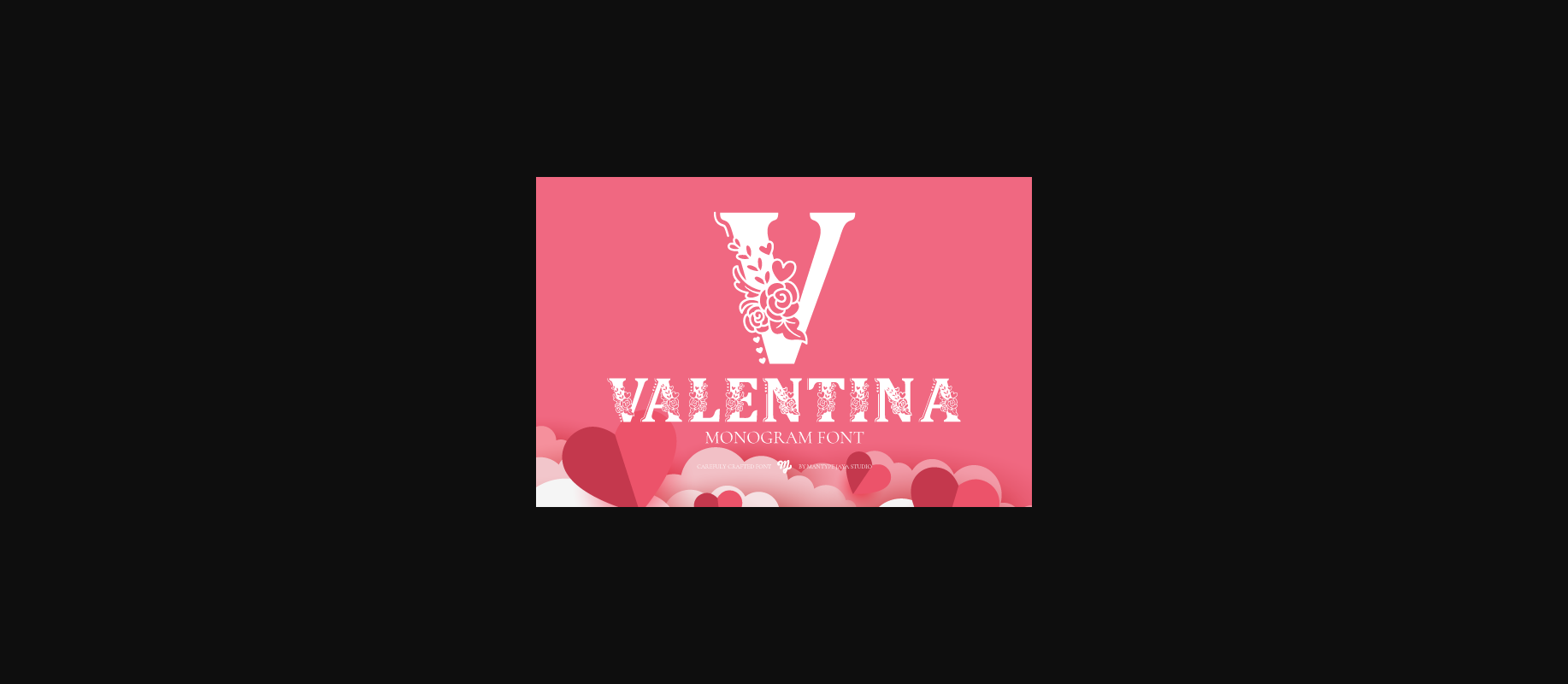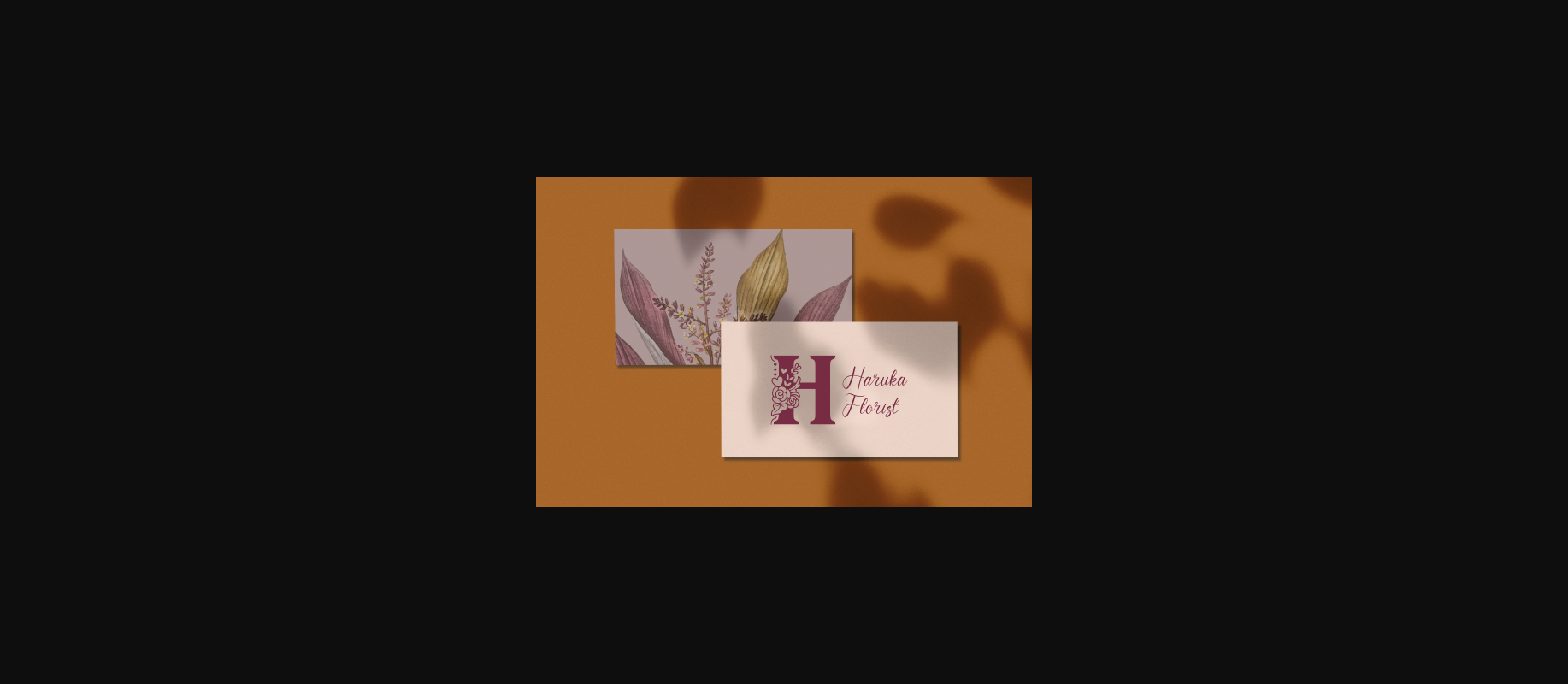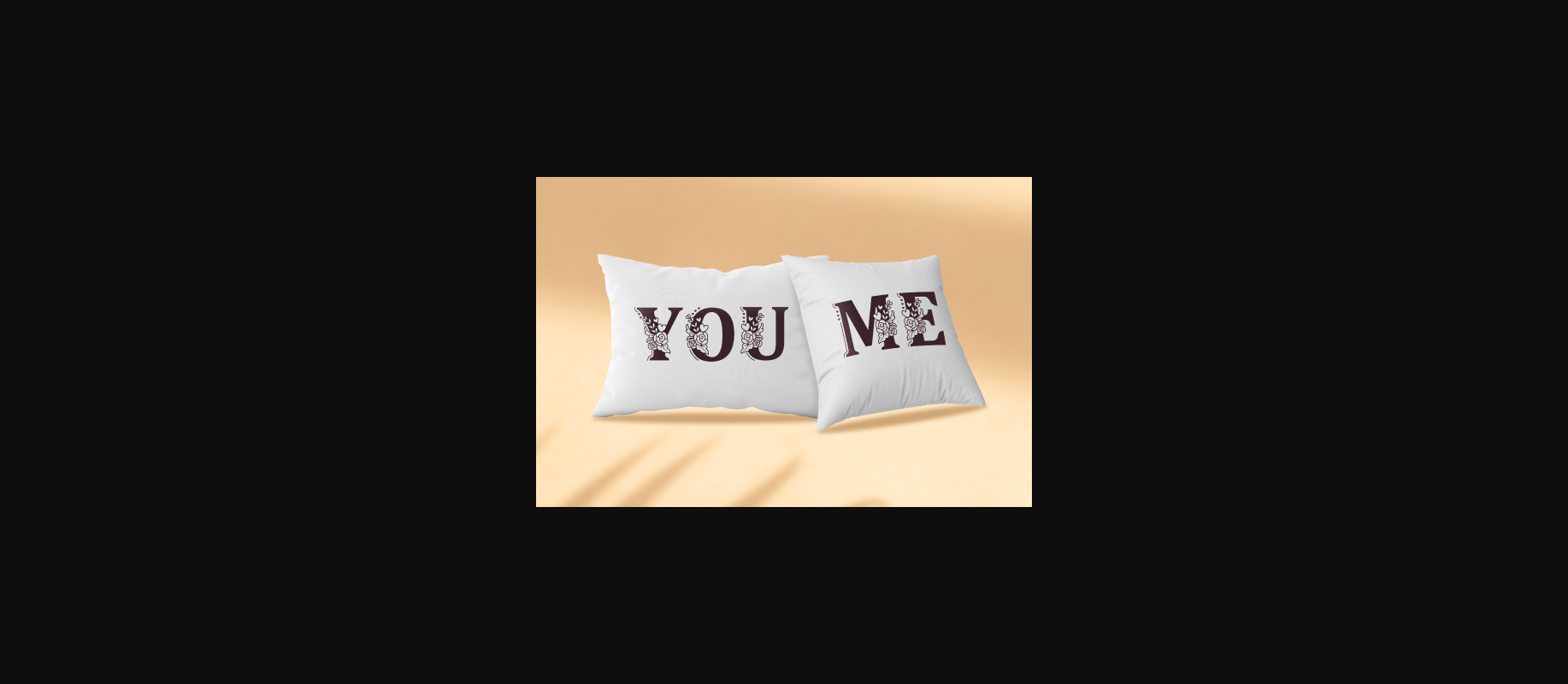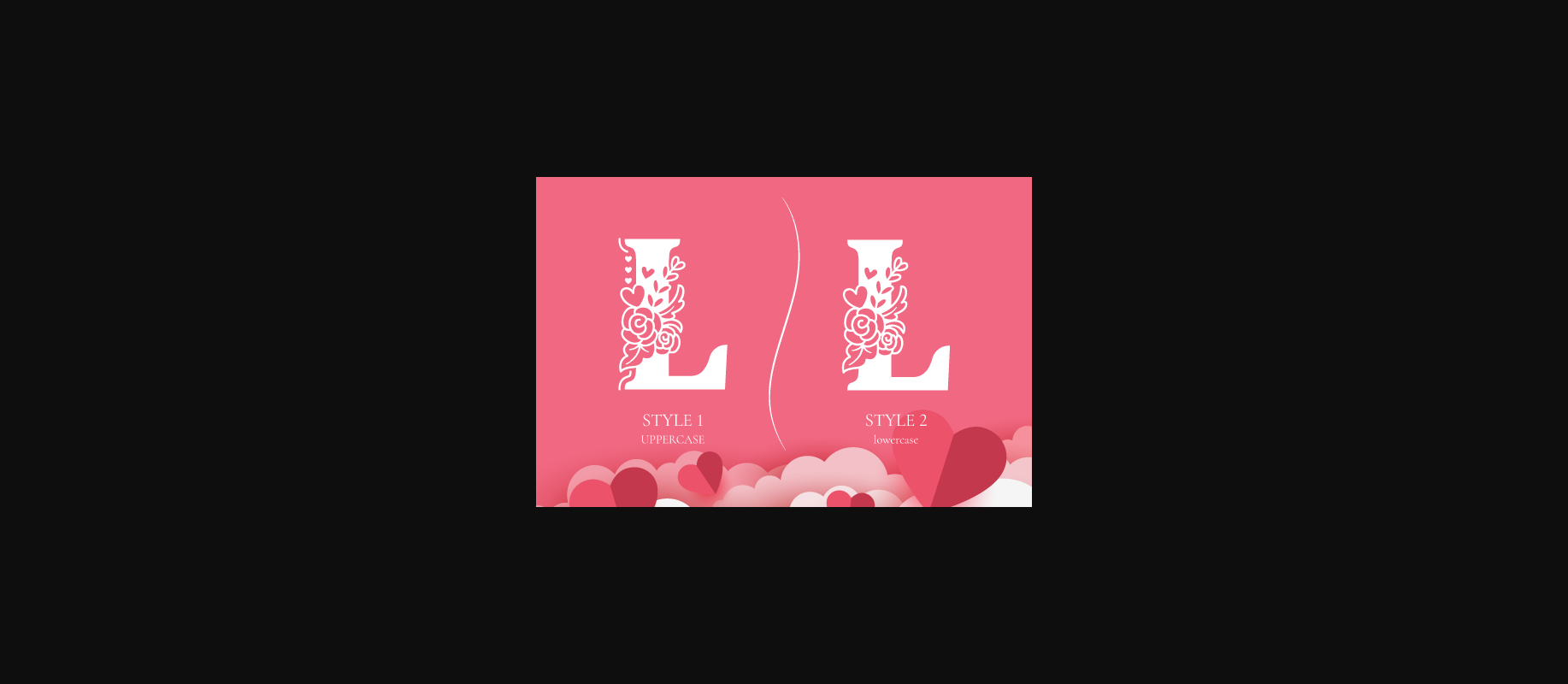
About Valentina Monogram Font
Valentina Monogram is a gorgeous decorative font. The serif letters with elegant floral decorations make Valentina a great asset to your fonts library. Use Valentina to create unique logos or merch, pretty packaging projects, beautiful card designs, and many more.